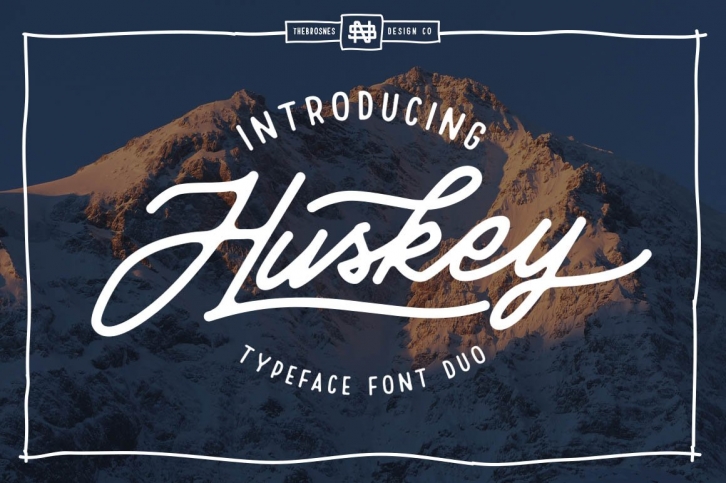
Huskey is script font, Glowing Sunday is a san serif font, both suitable to be paired or combined for a nice design.
Combine these two fonts for various purposes. such as Branding, Logos, Posters, Apparel graphic, Letterhead, Letterpress, Packaging designs, Typographic Design, Apparel, Book cover and so much more...
- Character Set A-Z
- Numerals & Punctuations (OpenType Standard)
- Accents (Multilingual characters)
- Character Set A-Z
- Numerals & Punctuations
- Accents (Multilingual characters)